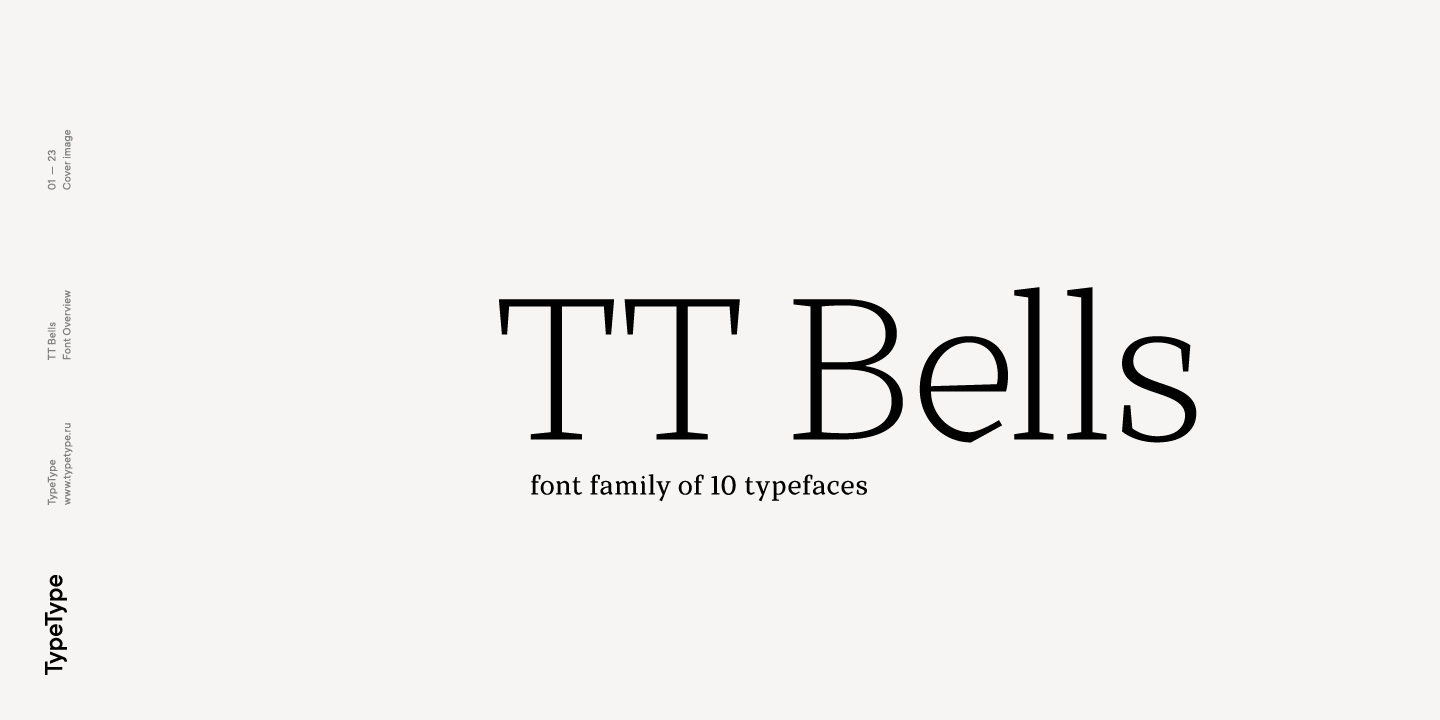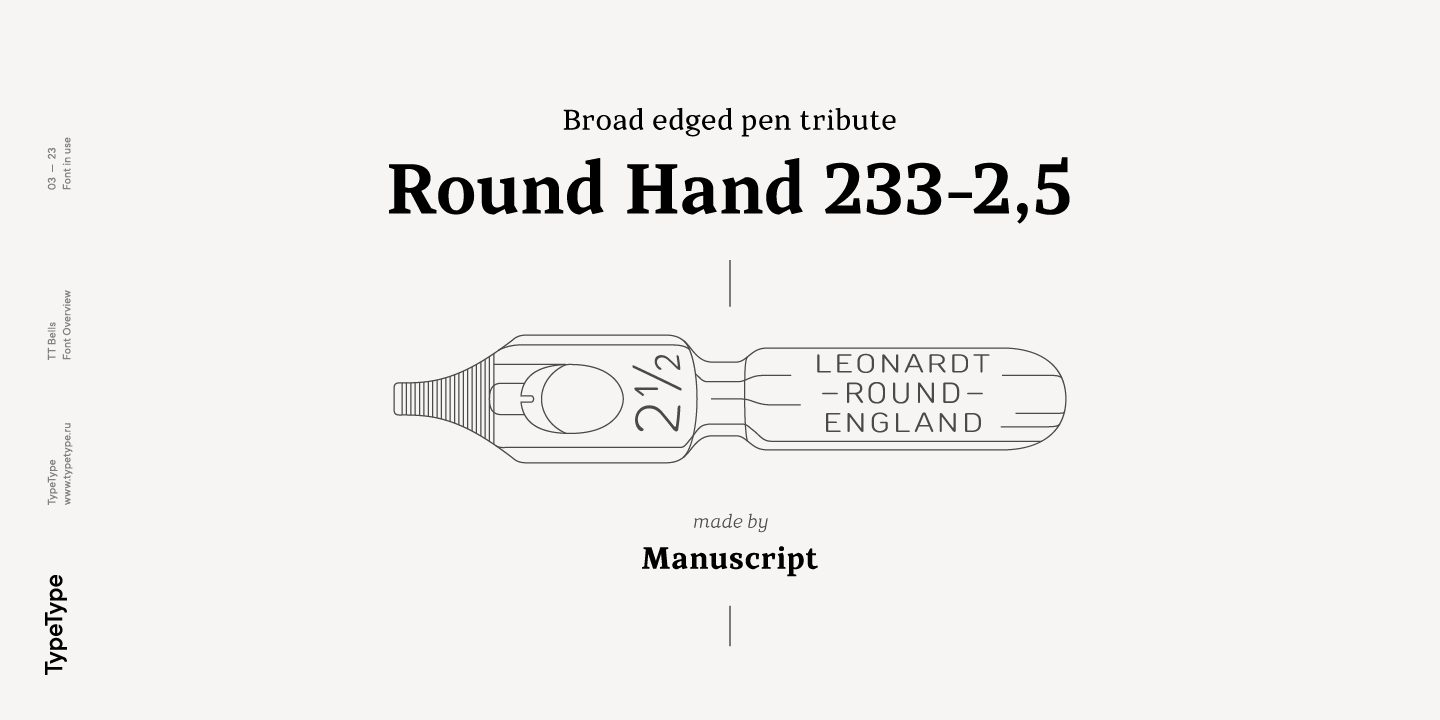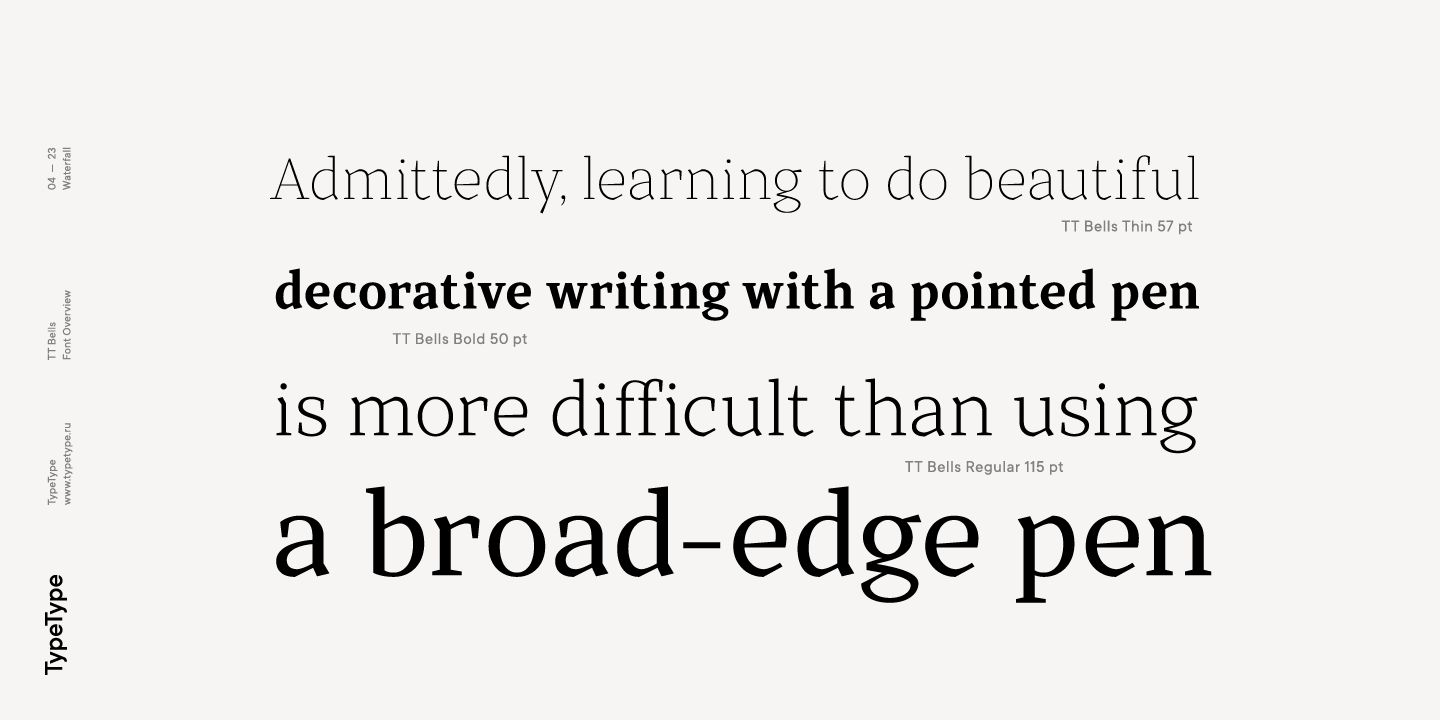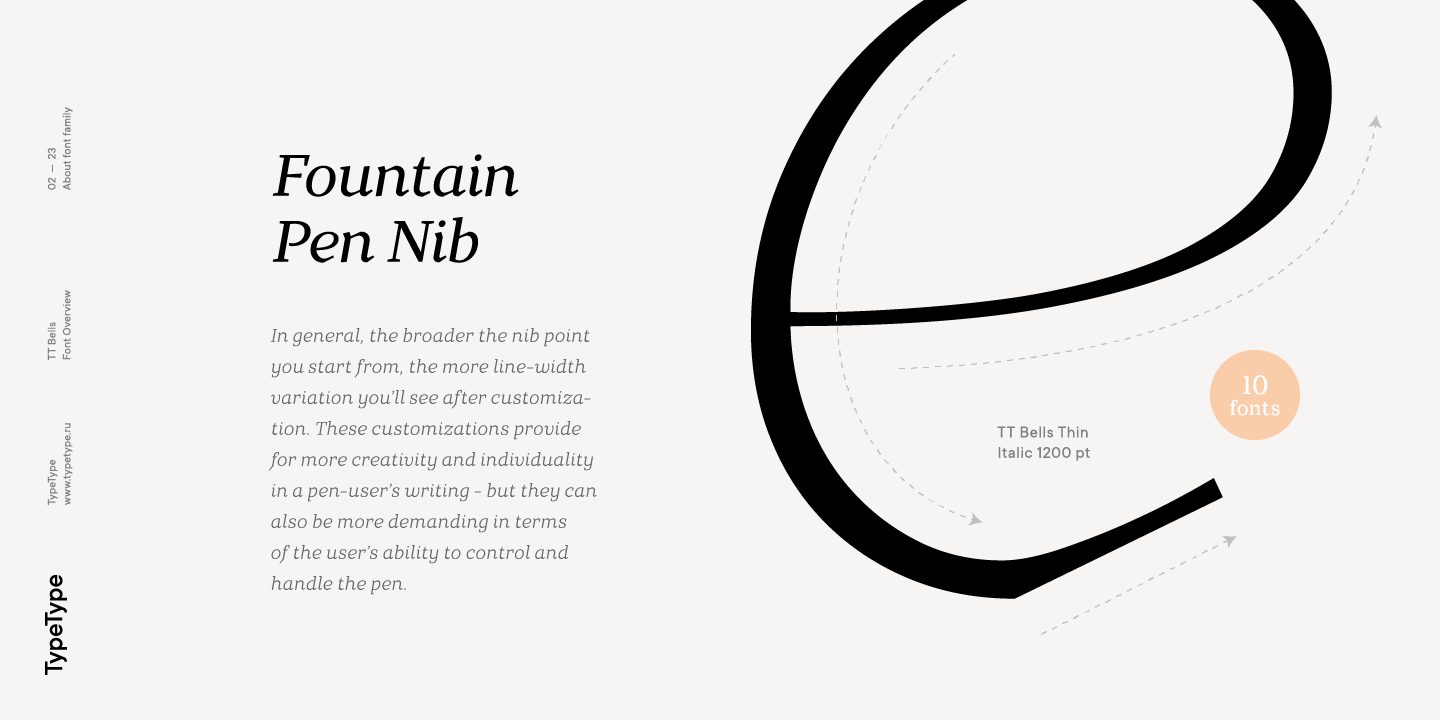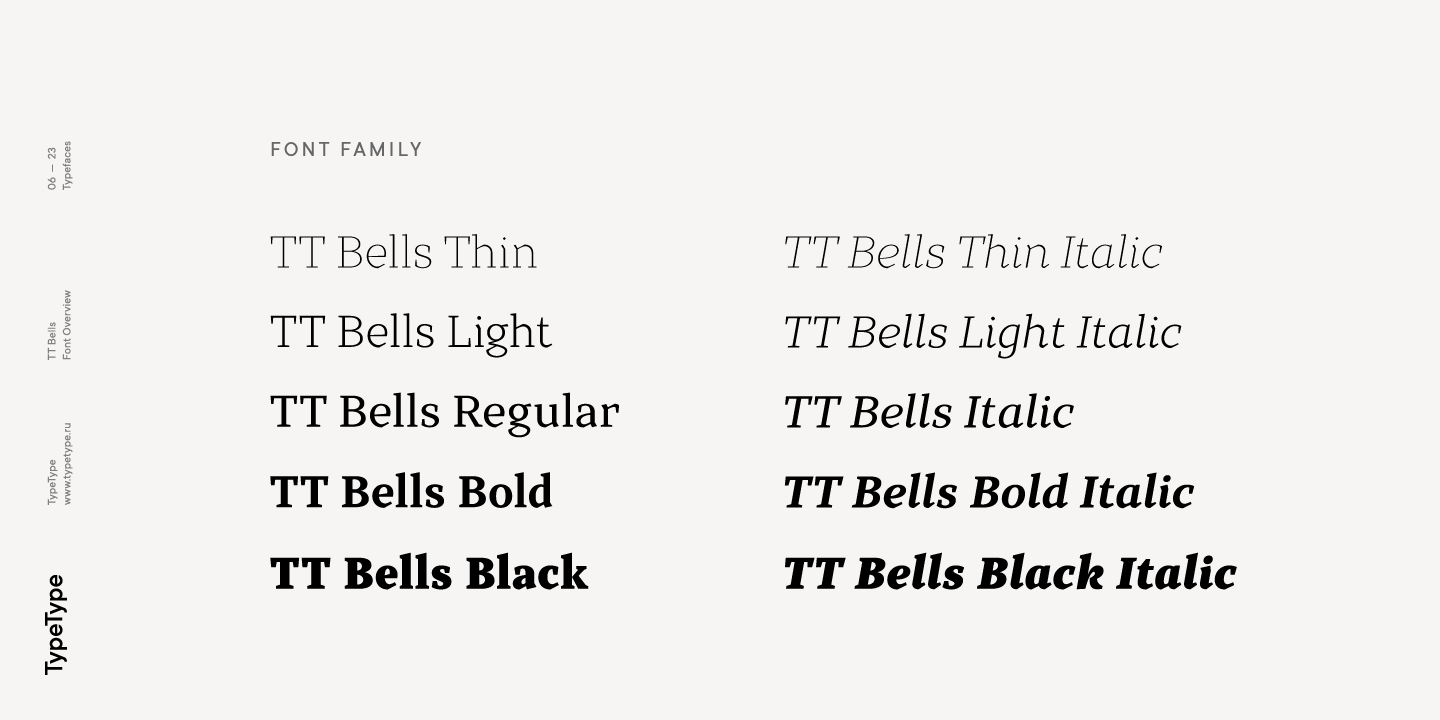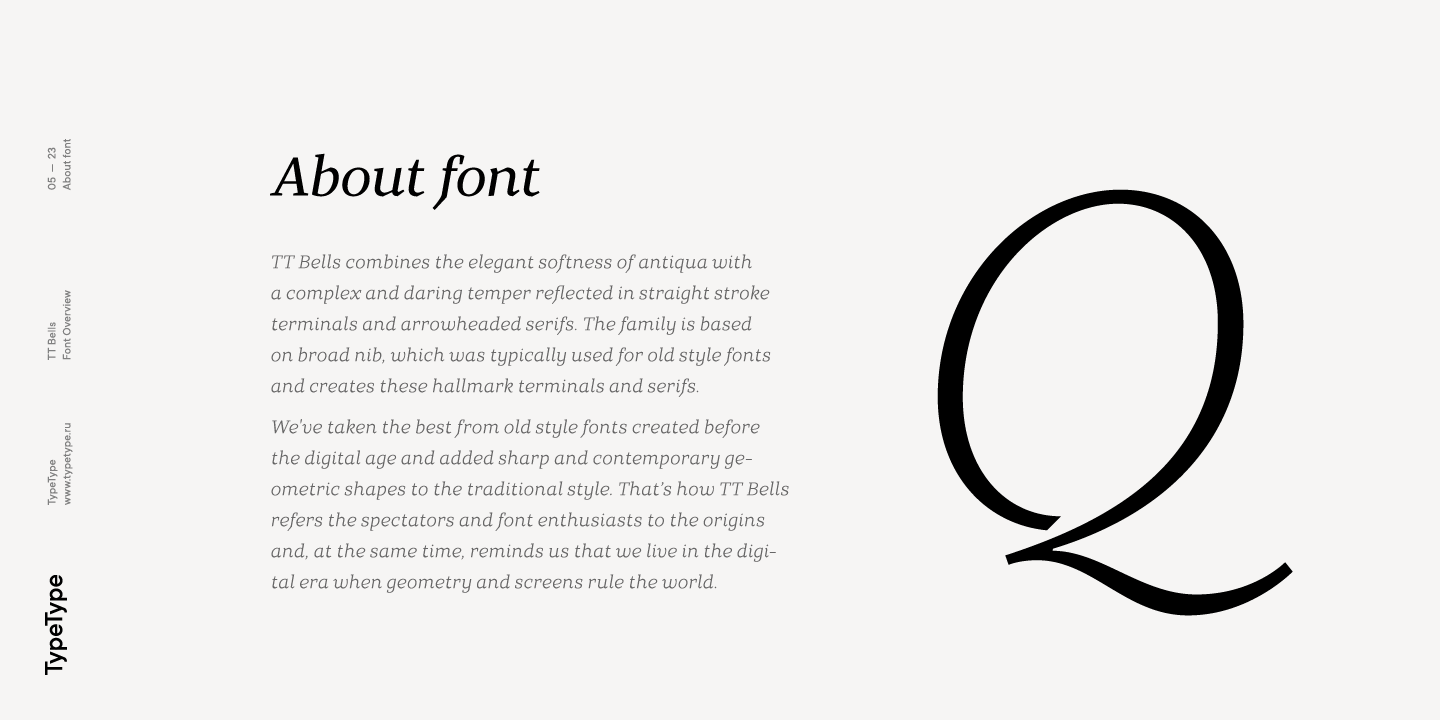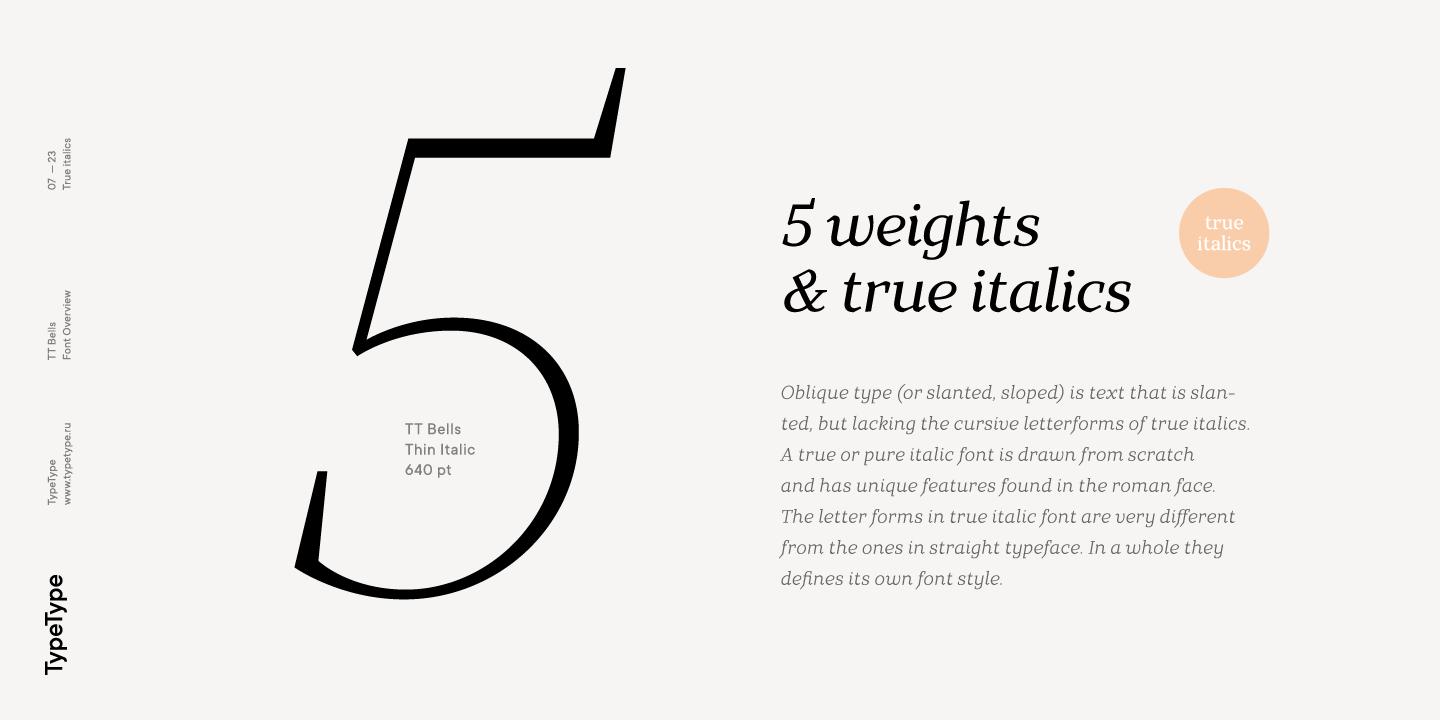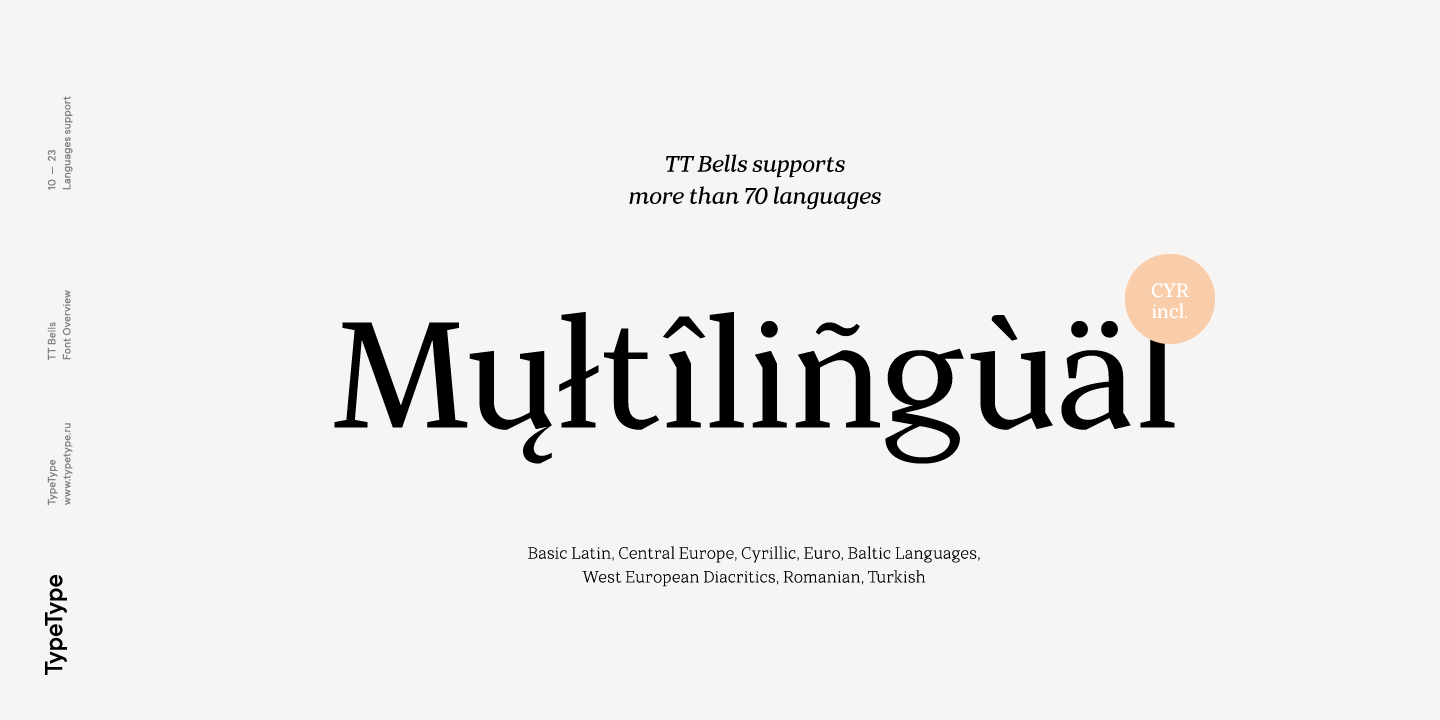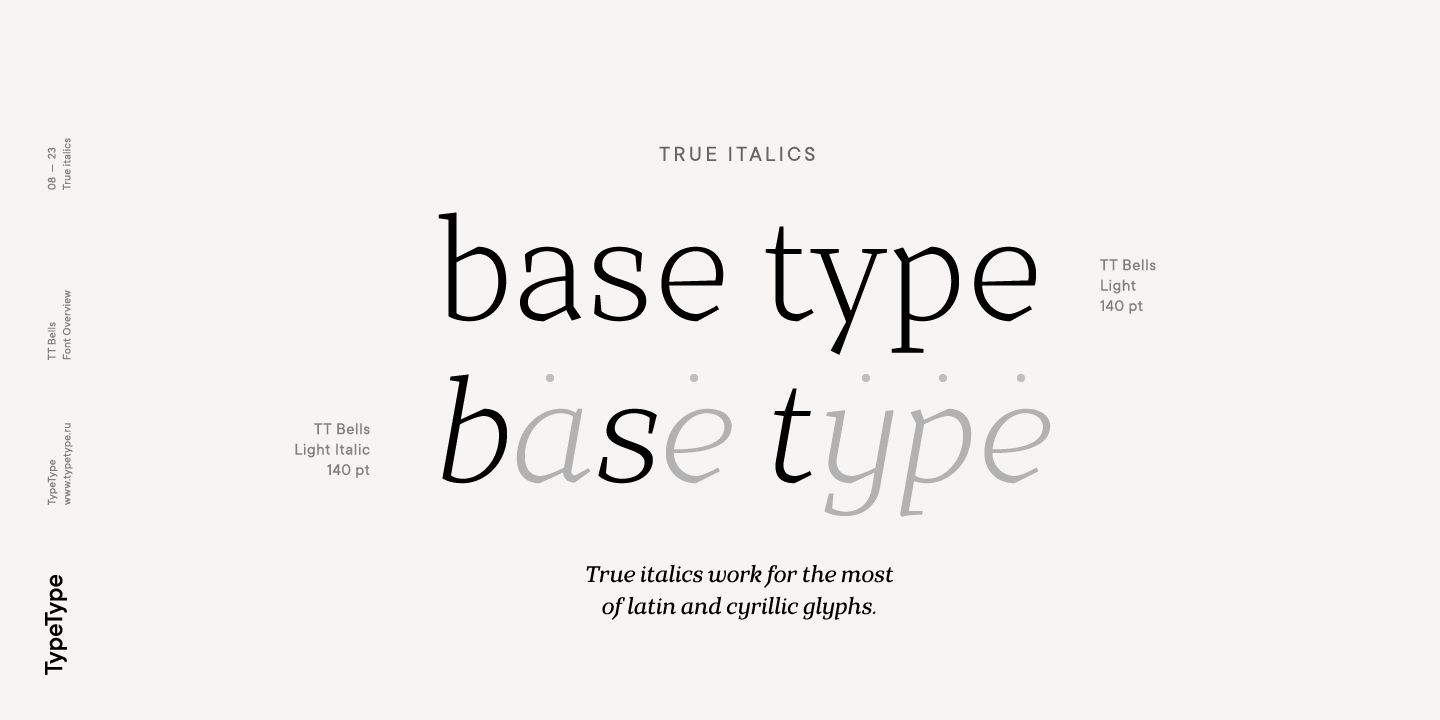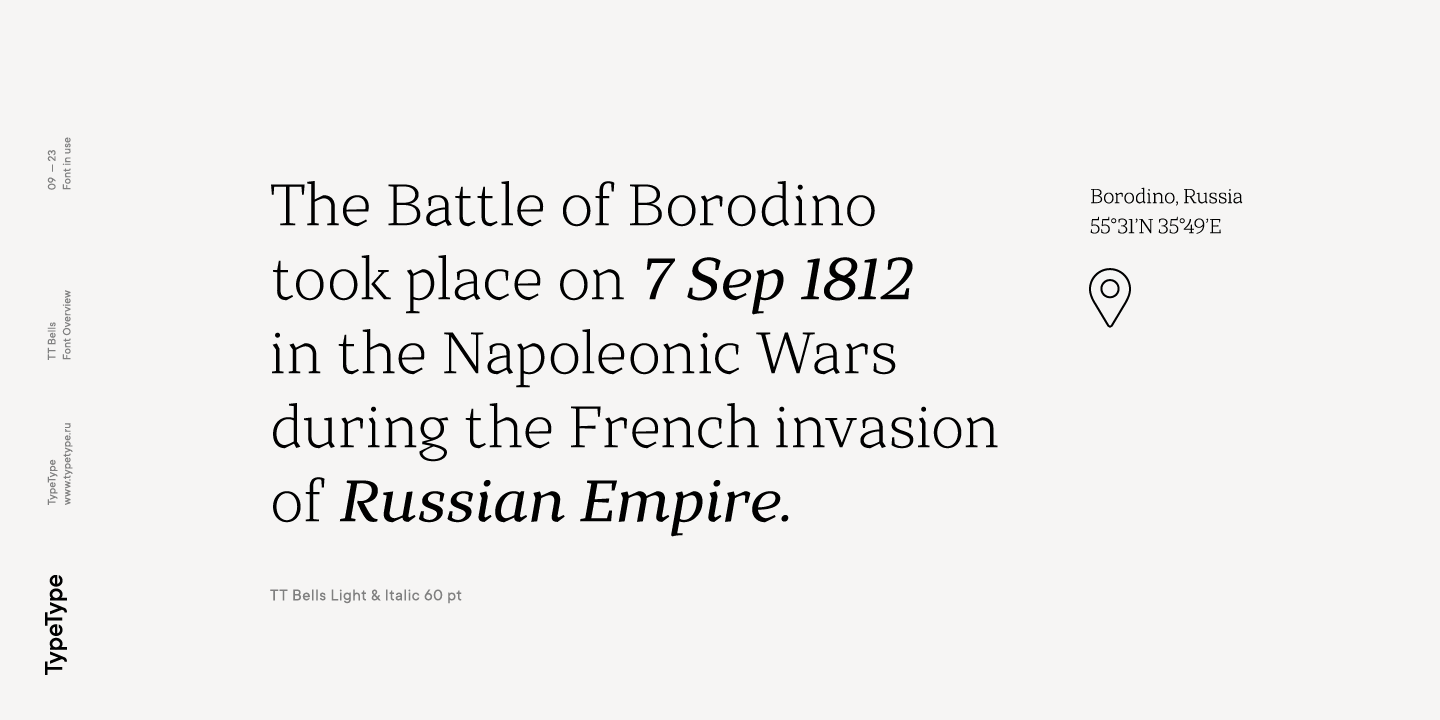
TT Bells Family (10 fonts)
TT Bells is suited for different types of text – from the shortest headings to large text arrays. When the font size is decreased, the boldness and sharpness of the font soften, it becomes more classic. The fontfamily is created according to the traditional TypeType formula (Thin, Light, Regular, Bold, Black & Italics)! We've also enabled the support of a broad number of OT features, which will help you widen the implementation range for this family: tnum, onum, pnum, numr, dnom, frac, case, ordn, subs, sups.
Baltic, Central/Eastern Europe, Cyrillic, Romanian, Turkish, Western Europe
Old-style Digits, Contextual Alternates, Fractions, Superscript, Subscript